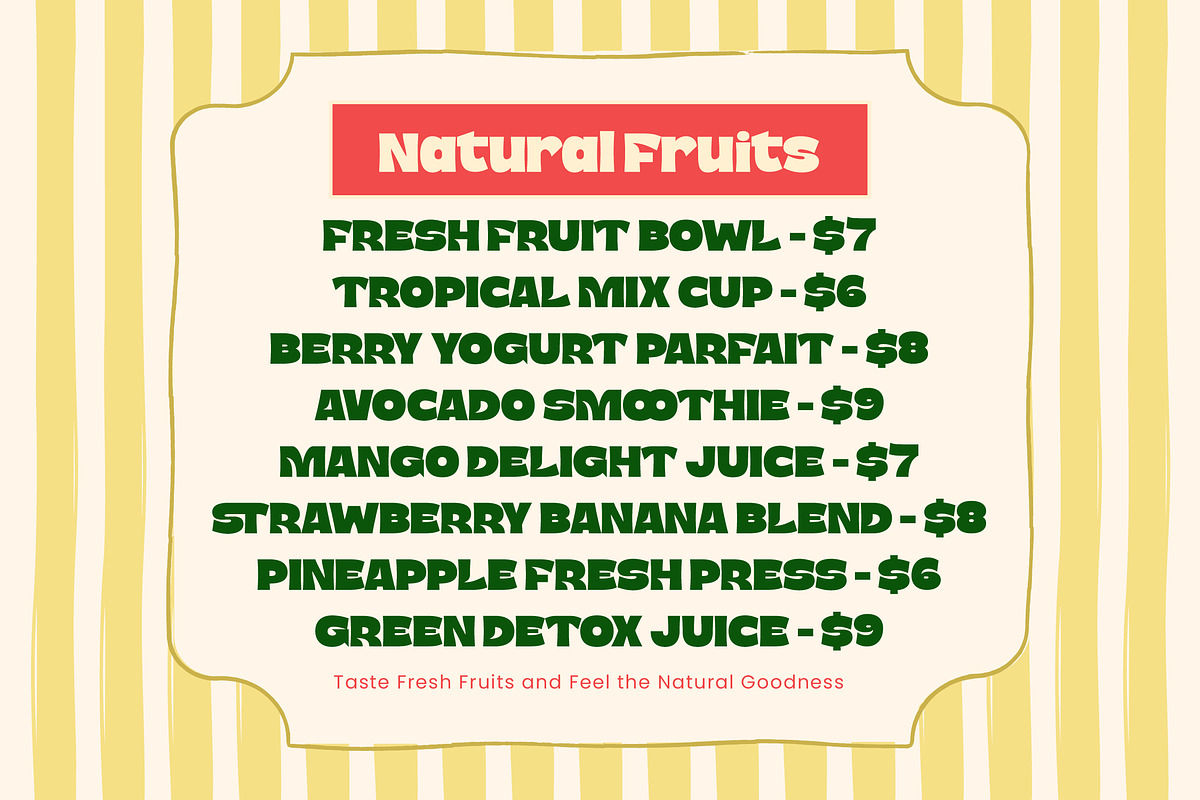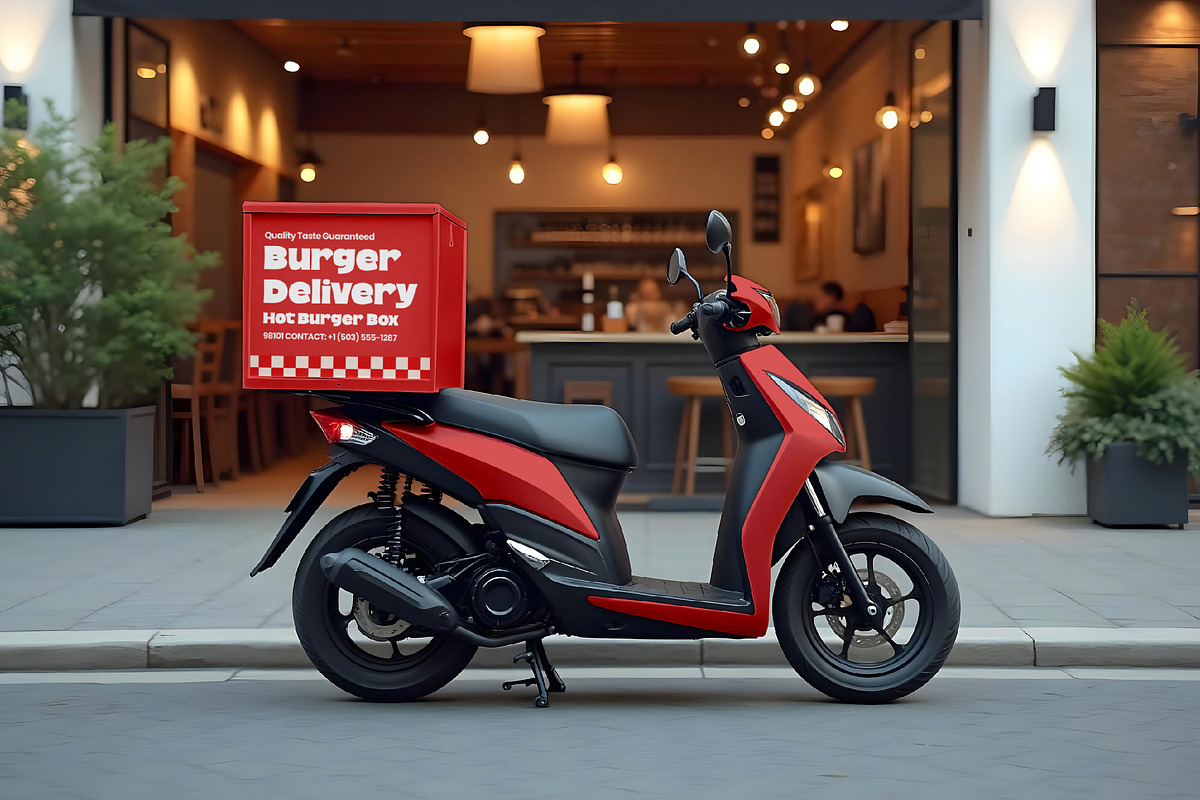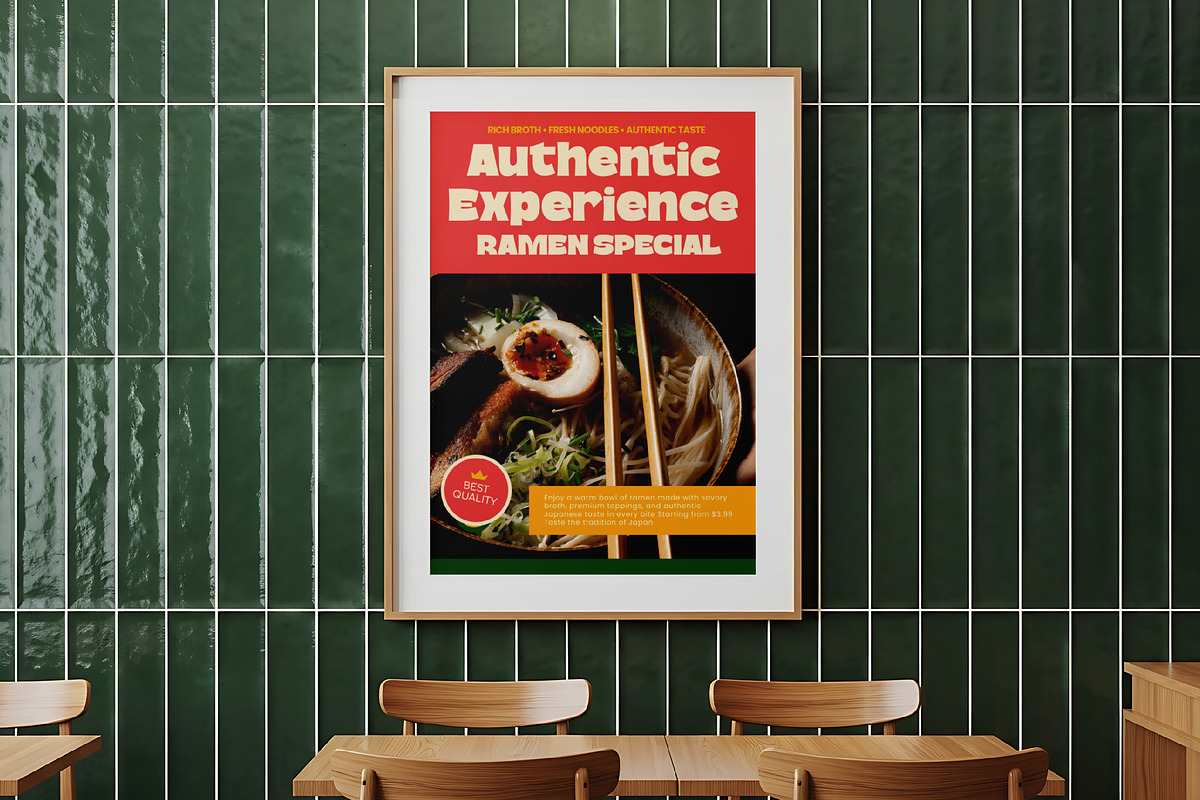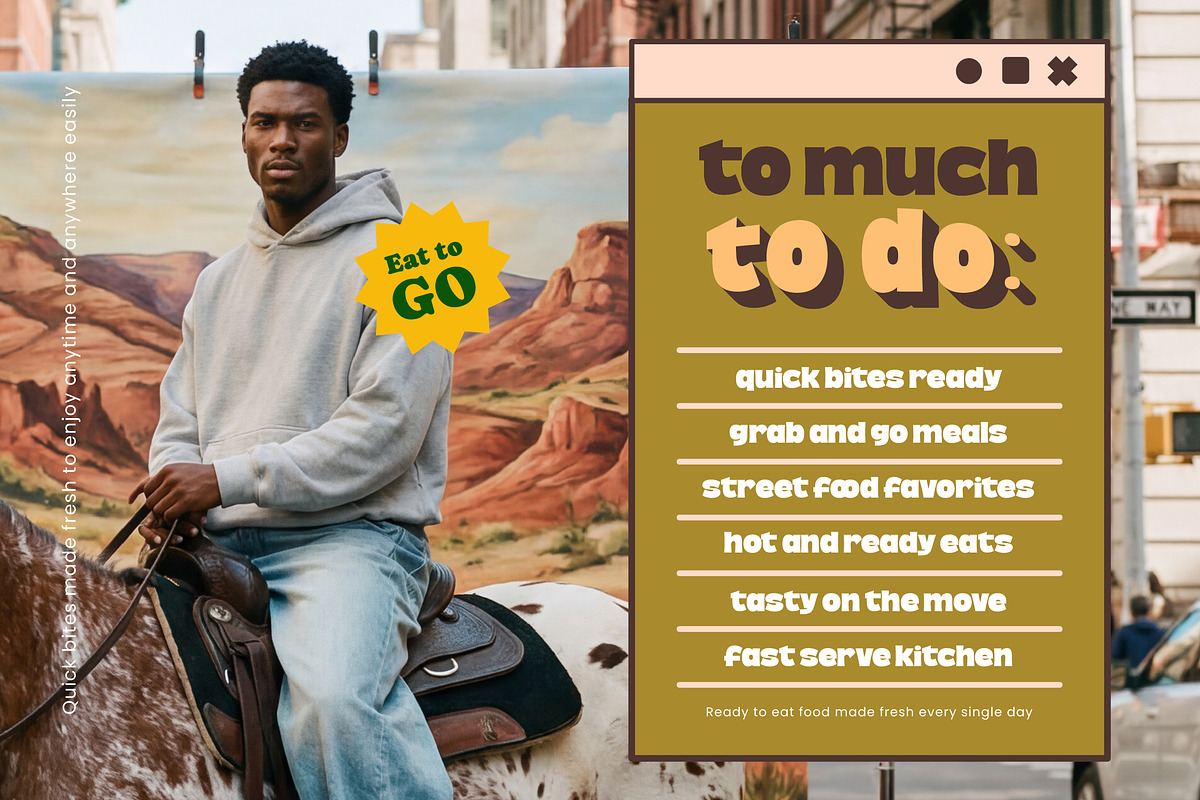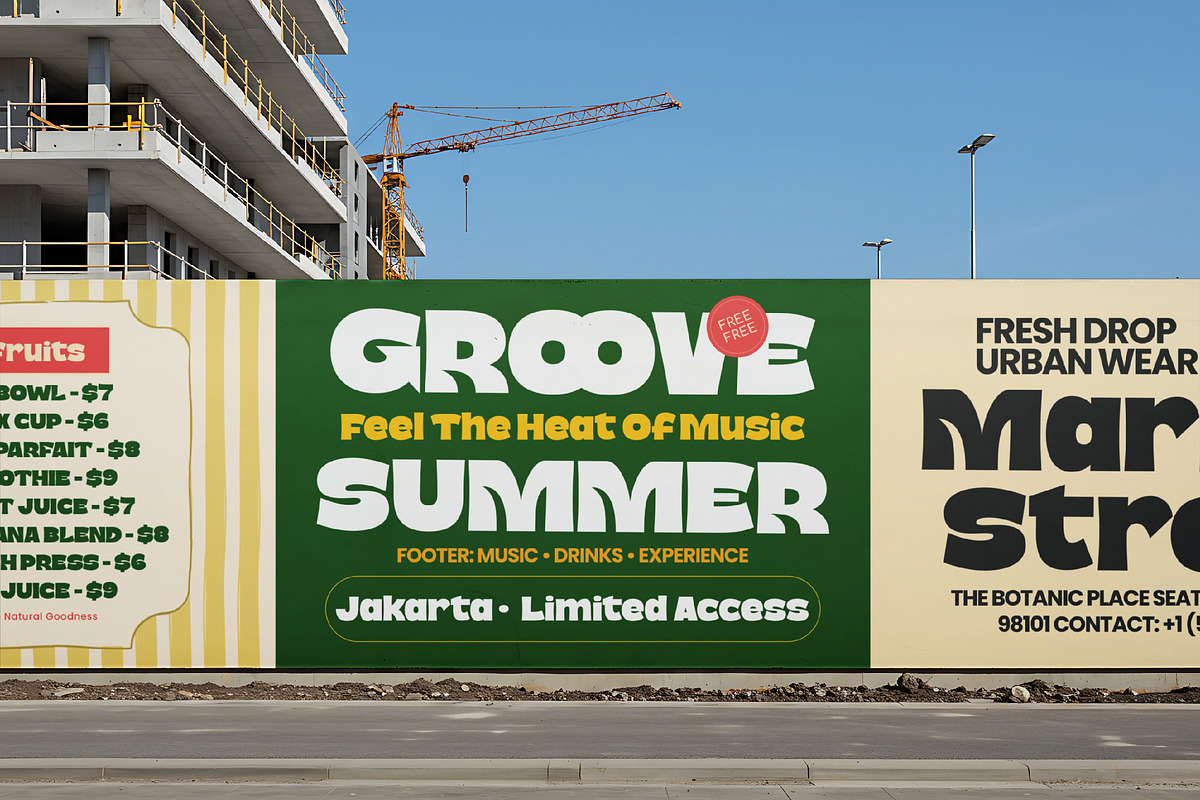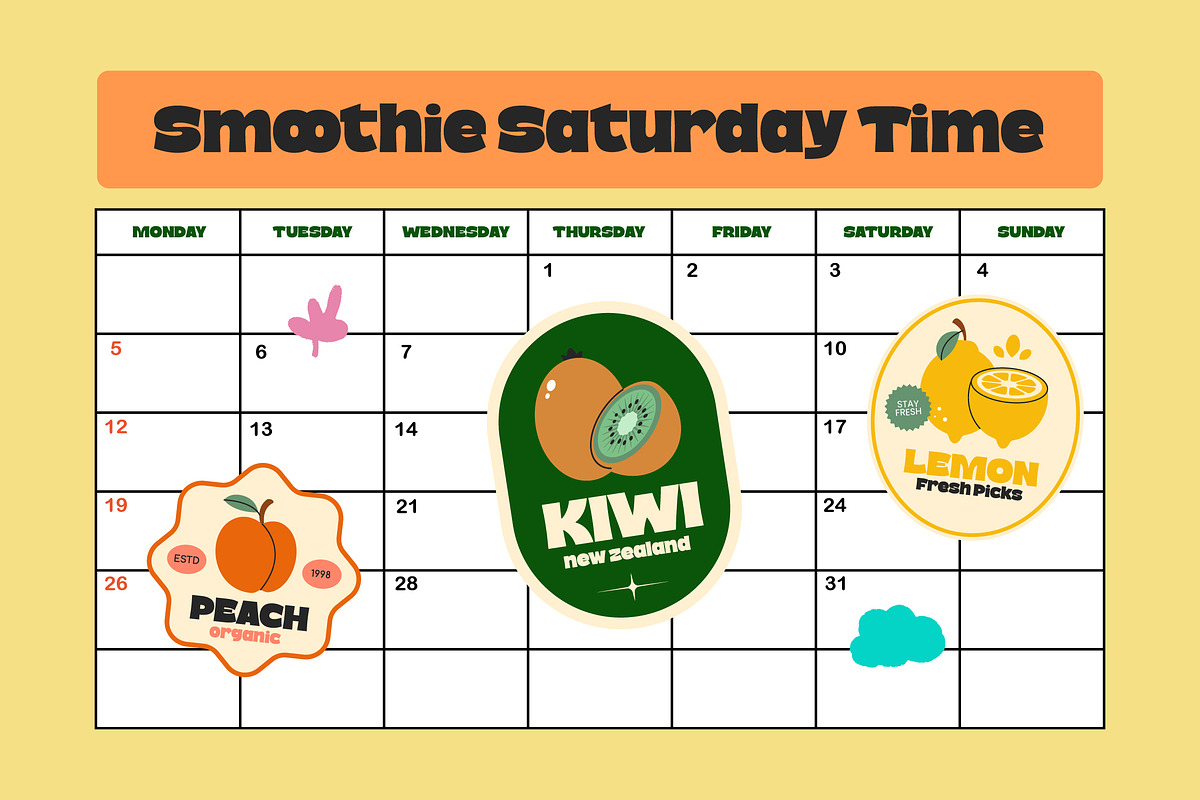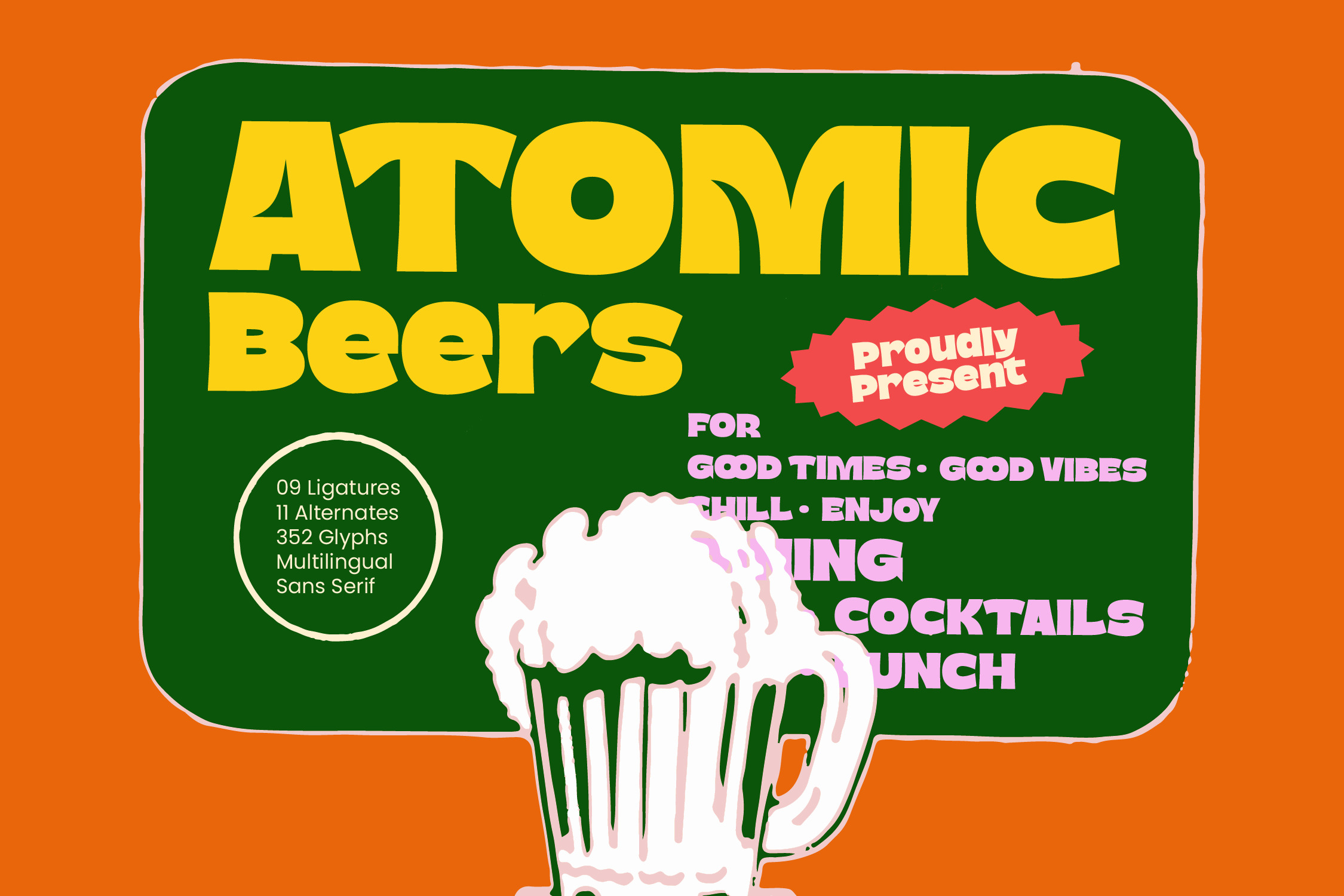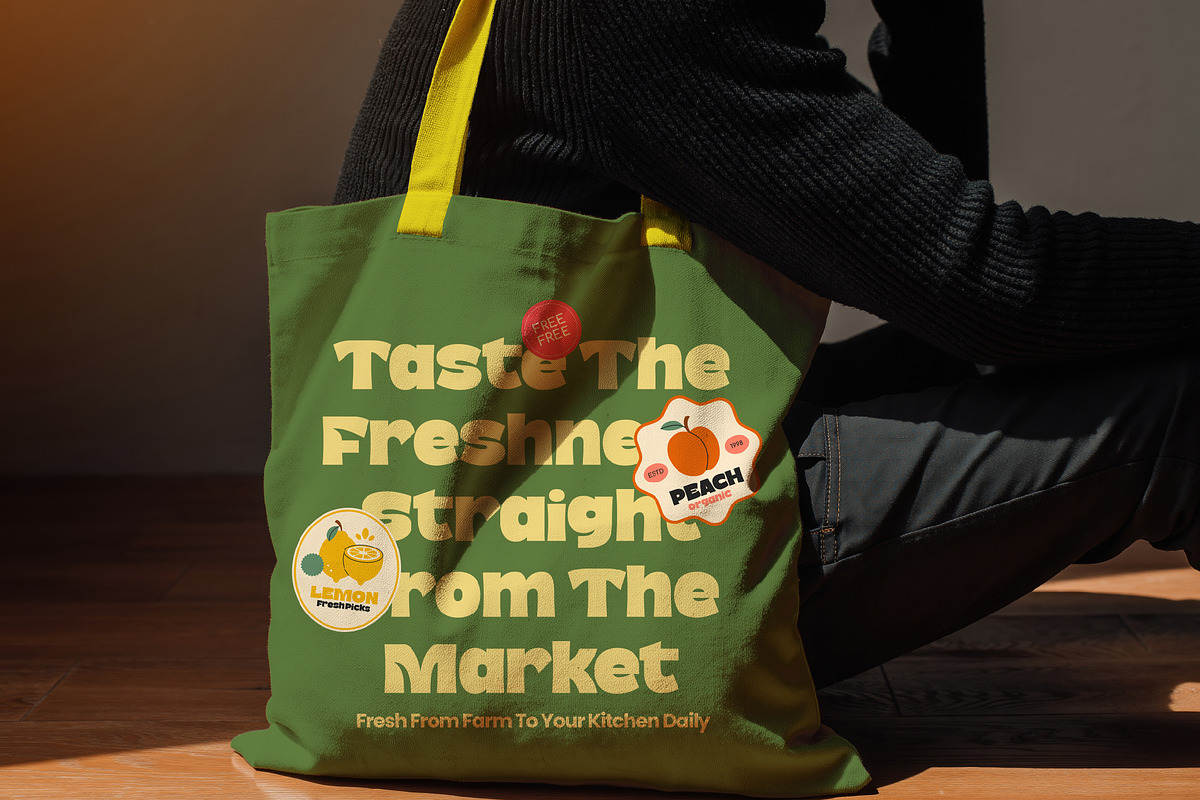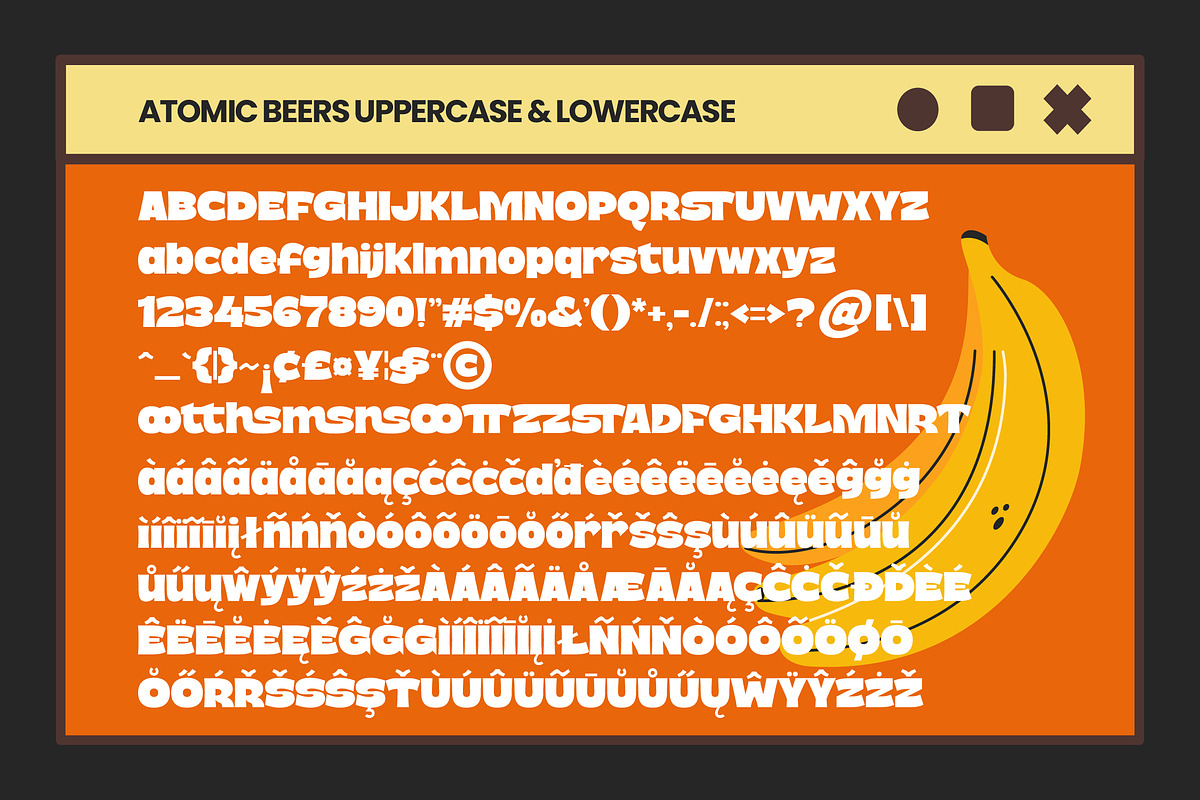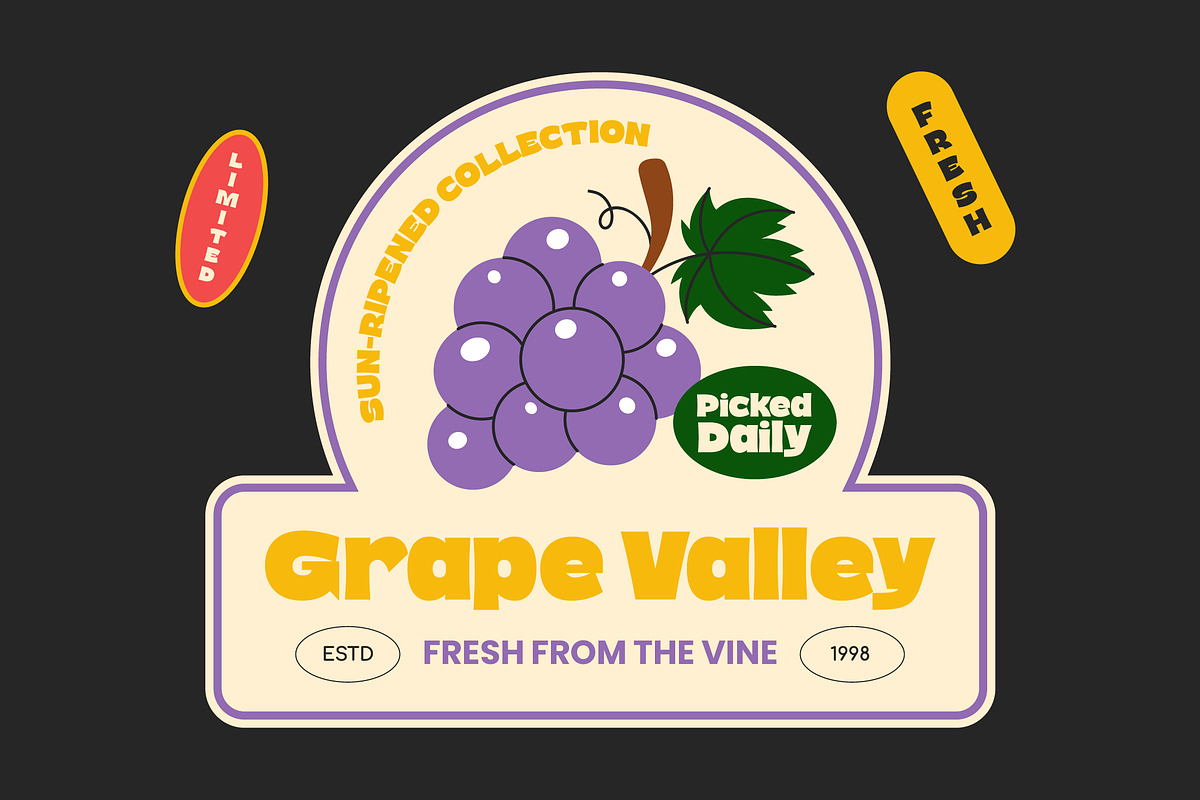
Atomic Beers Bold Sans Display Font
Atomic Beers – Bold Sans Display Font , Ignite your creative vision with a bold aesthetic that demands immediate attention. Atomic Beers – Bold Sans Display Font is a powerhouse of visual dominance, blending vintage-inspired energy with a contemporary edge. Its heavy, high-impact letterforms are designed to anchor any layout, ensuring your message is not just seen, but remembered. This typeface strikes a perfect balance between playful charisma and professional polish, making it a definitive choice for designers looking to break through the noise.
Reach a global audience with unrivaled technical flexibility and character depth. With its extensive multilingual support, Atomic Beers – Bold Sans Display Font adapts seamlessly across global markets, making it incredibly versatile for international projects. Featuring a robust set of 352 glyphs, including unique ligatures and stylized alternates, this font offers endless possibilities for customization. Its hand-crafted feel provides a human touch to digital and print media alike, ensuring premium readability across all platforms.
Transform your brand identity with a font built for high-performance marketing and luxury branding. Atomic Beers – Bold Sans Display Font is the perfect choice for craft packaging design, editorial headers, event posters, and lifestyle apparel. Its thick, assertive strokes excel in large formats where bold communication is paramount. Whether you are launching a boutique beverage line or a trendy urban campaign, this typeface provides the distinctive personality needed to establish a cohesive brand voice.
Elevate your design portfolio with a versatile asset that guarantees an unforgettable identity. Investing in Atomic Beers – Bold Sans Display Font means choosing professional typography that stands the test of time. The high-contrast curves and bold geometry create a rhythmic flow that captures the essence of modern street style and classic Americana. Secure this essential display font today and bring a sophisticated, high-energy atmosphere to your next commercial masterpiece.
Ligatures and Alternative Style Stylistic Set